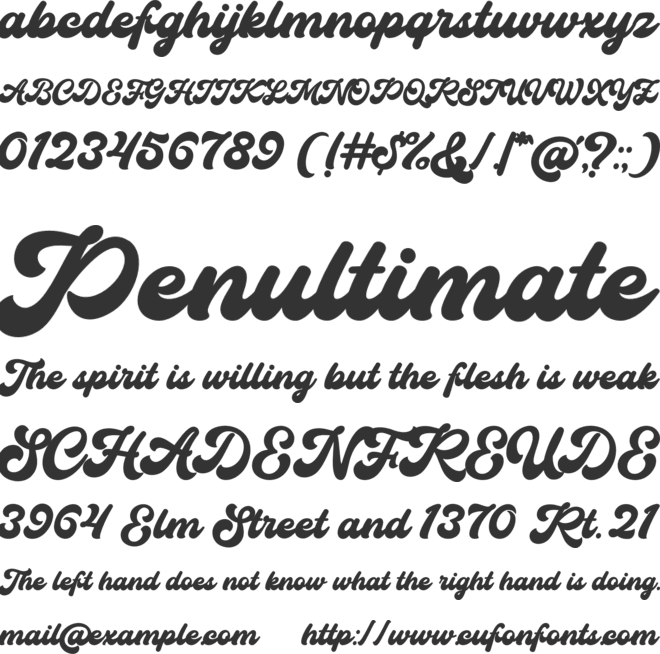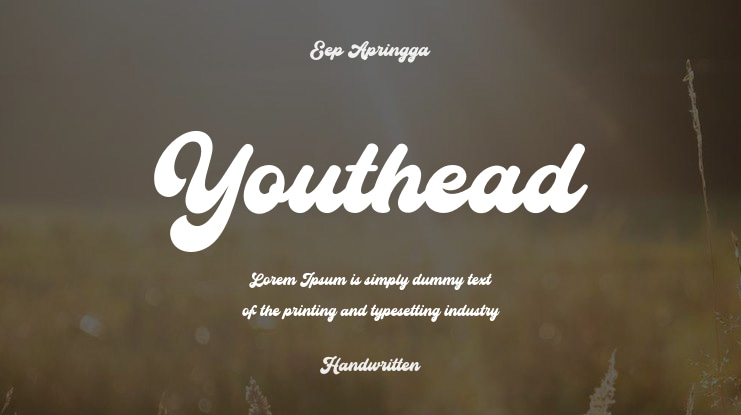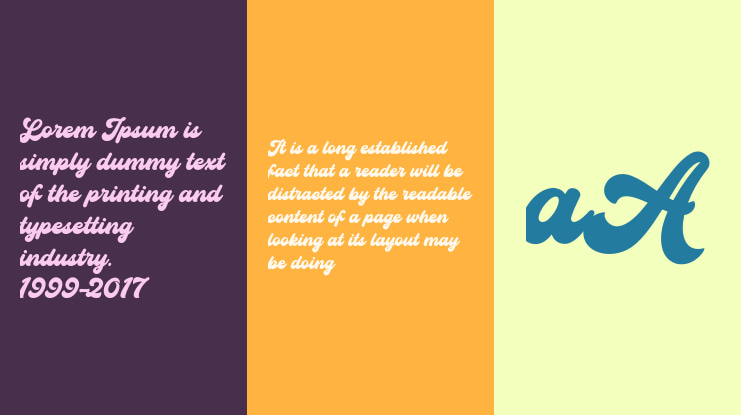
Youthead Font
Eep Apringga
The perfect blend of vintage charm and contemporary elegance. Make your project memorable and stylish with the unique charm of retro-modern typography.Features :- Full set of standard characters and punctuations.- Alternates, ligatures, swashes and multilingual support.- PUA Encoded | no special software needed to access extra characters.Notes :- This Font is PERSONAL USE ONLY, NO COMMERCIAL USE ALLOWED!- For Full Version and COMMERCIAL USE, please purchase license here https://onedsgn.com/product/youthead-script/